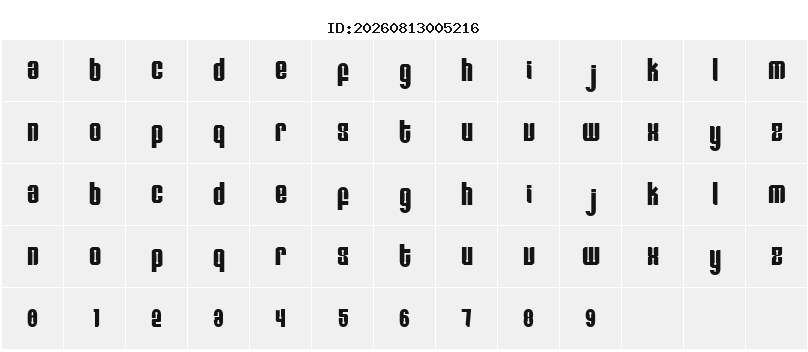
RemiHead Preview
• Font Name: RemiHead
• Full Font Name: RemiHead
• PostScript Name: RemiHead
About RemiHead.ttf
RemiHead.ttf is a modern, elegant sans-serif font designed for ultimate readability and visual harmony. Perfect for branding, headlines, web design, and print materials.